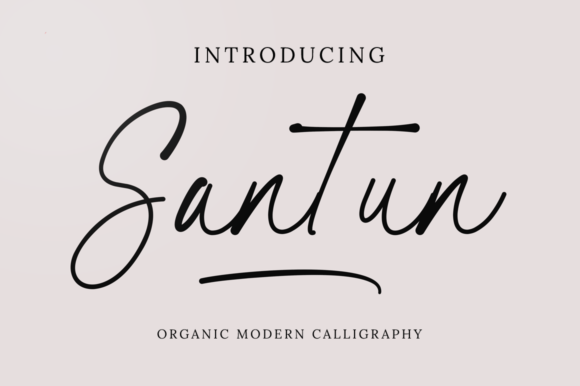
Unveil Santun Signature Font, a script font of extraordinary beauty, crafted by the talented Muwatta Studio. Its meticulous design and intricate detailing make it an exceptional font, ready to elevate your creations with an air of refined elegance.
Santun Signature captivates with its fluid strokes that flow effortlessly, exuding a touch of whimsy and charm. Its graceful curves and subtle flourishes add a personal touch to any project, whether it be wedding invitations, branding materials, or social media graphics.
With its PUA encoding, Santun Signature offers seamless access to a treasure trove of glyphs and swashes. Unleash your creativity and explore limitless possibilities, adorning your designs with unique characters and stunning embellishments.
The versatility of Santun Signature is truly remarkable. It seamlessly adapts to a wide range of projects, effortlessly enhancing their visual appeal. From elegant wedding labels to captivating social media posts, this font possesses the versatility to transform your ideas into breathtaking realities.